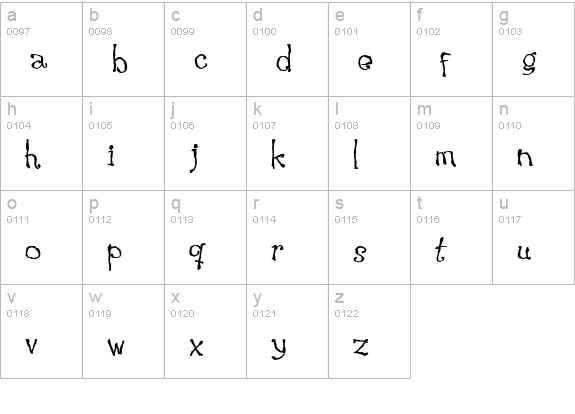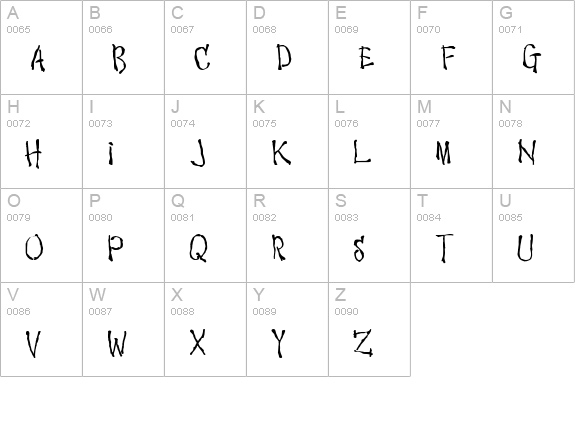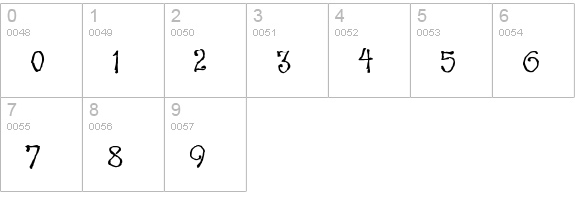
Waking the Witch Font Details
Introducing Waking the Witch, a captivating font that is sure to cast a spell on your design projects. This enchanting typeface combines elegance with a touch of mystery, making it perfect for adding a touch of magic to any artistic endeavor. With its delicate curves and intricate details, Waking the Witch is a font that demands attention. Each letter is carefully crafted to bring an air of whimsy and intrigue, drawing the viewer in and leaving them spellbound. But what truly sets Waking the Witch apart is its versatility. Whether you're designing a book cover, creating a logo, or crafting a unique social media post, this font effortlessly adapts to any style or theme. From gothic to fantasy, from modern to vintage, Waking the Witch will elevate your designs to new heights. And the best part? Waking the Witch is freely available to download at FontsMarket.com. This means that you can unleash your creativity without any constraints or limitations. Let your imagination run wild as you experiment with different layouts, sizes, and colors, knowing that this captivating font is at your fingertips, ready to bring your vision to life. So why wait? Embrace the magic of Waking the Witch and let it weave its spell on your next design project. Download this mesmerizing font for free at FontsMarket.com and watch as your creations truly come alive.